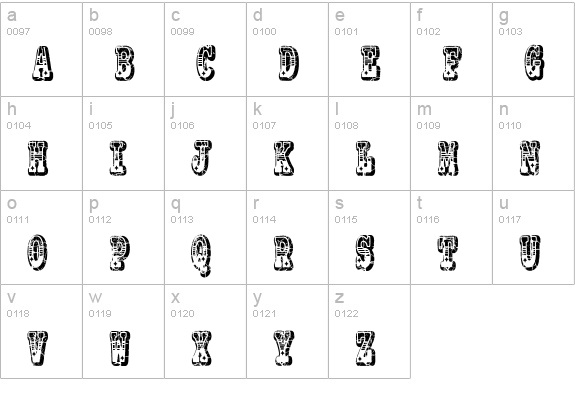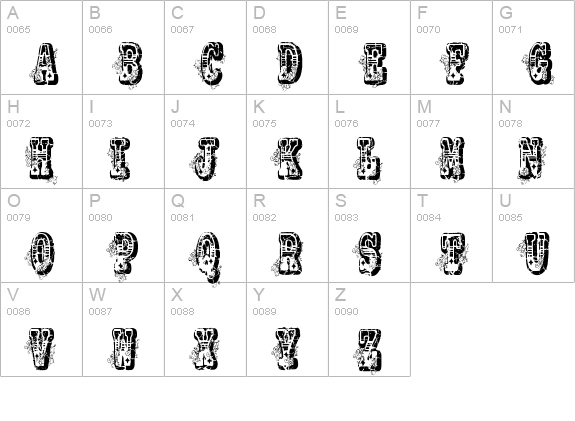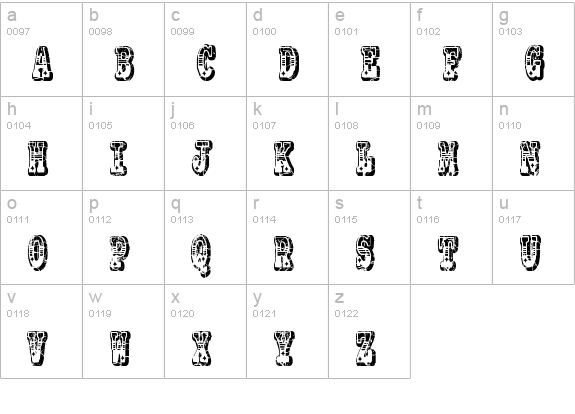
VTKS No Name Font Details
VTKS No Name font is a unique and stylish typeface that is perfect for adding a touch of creativity to your designs. With its playful yet modern aesthetic, this font is sure to stand out and make a statement. The irregular strokes and hand-drawn feel give VTKS No Name font a whimsical charm that is perfect for a variety of design projects. Best of all, VTKS No Name font is completely free to download at FontsMarket.com. Whether you're working on a personal project or a professional design, this font is a great choice for adding a fun and artistic touch. Don't miss out on this free and versatile font - download VTKS No Name today and let your creativity shine!